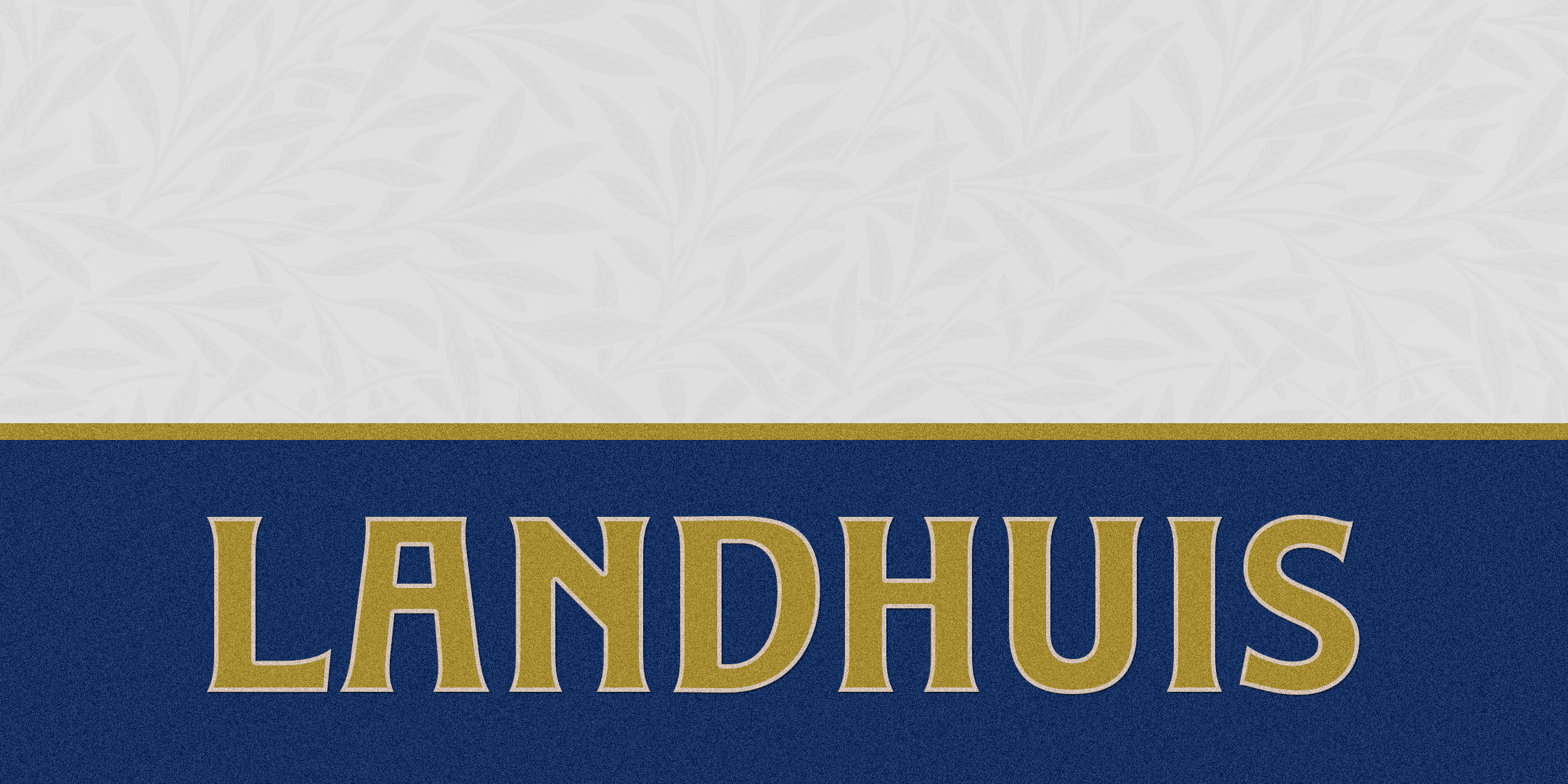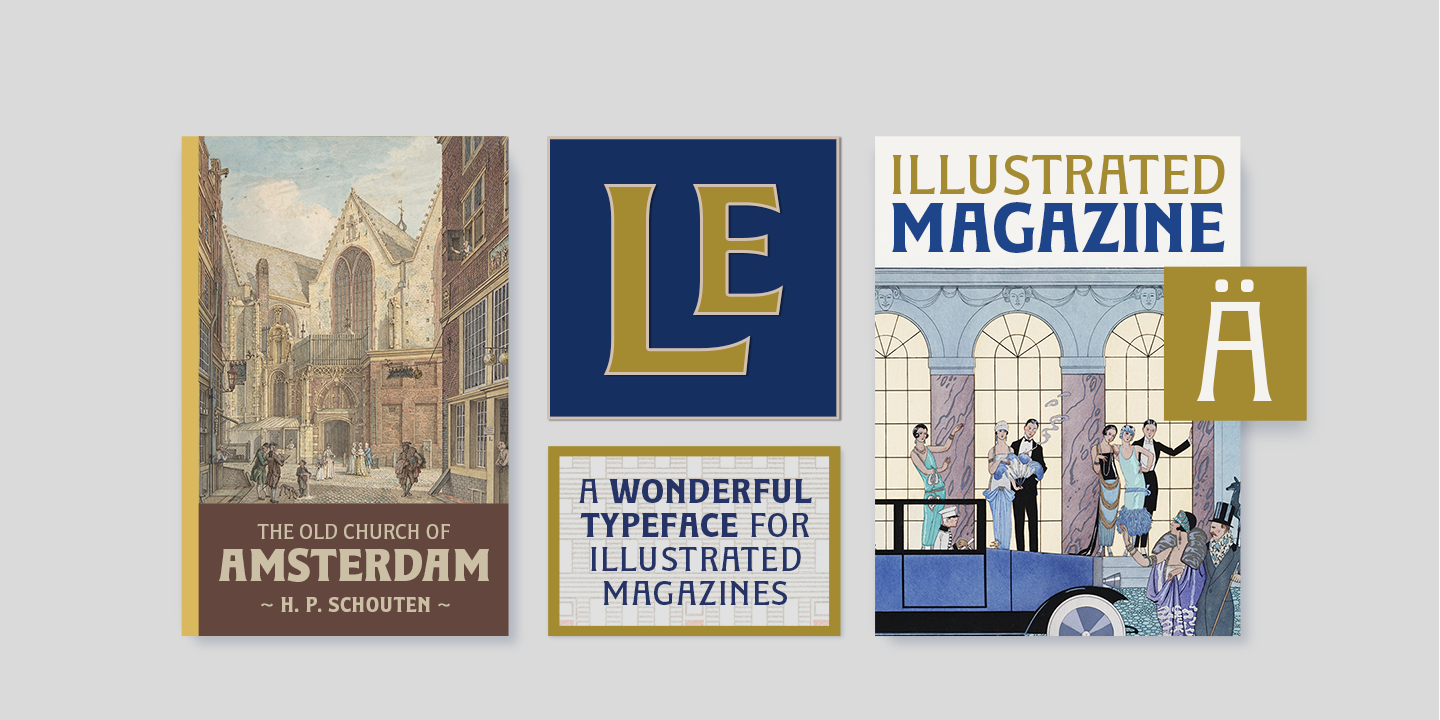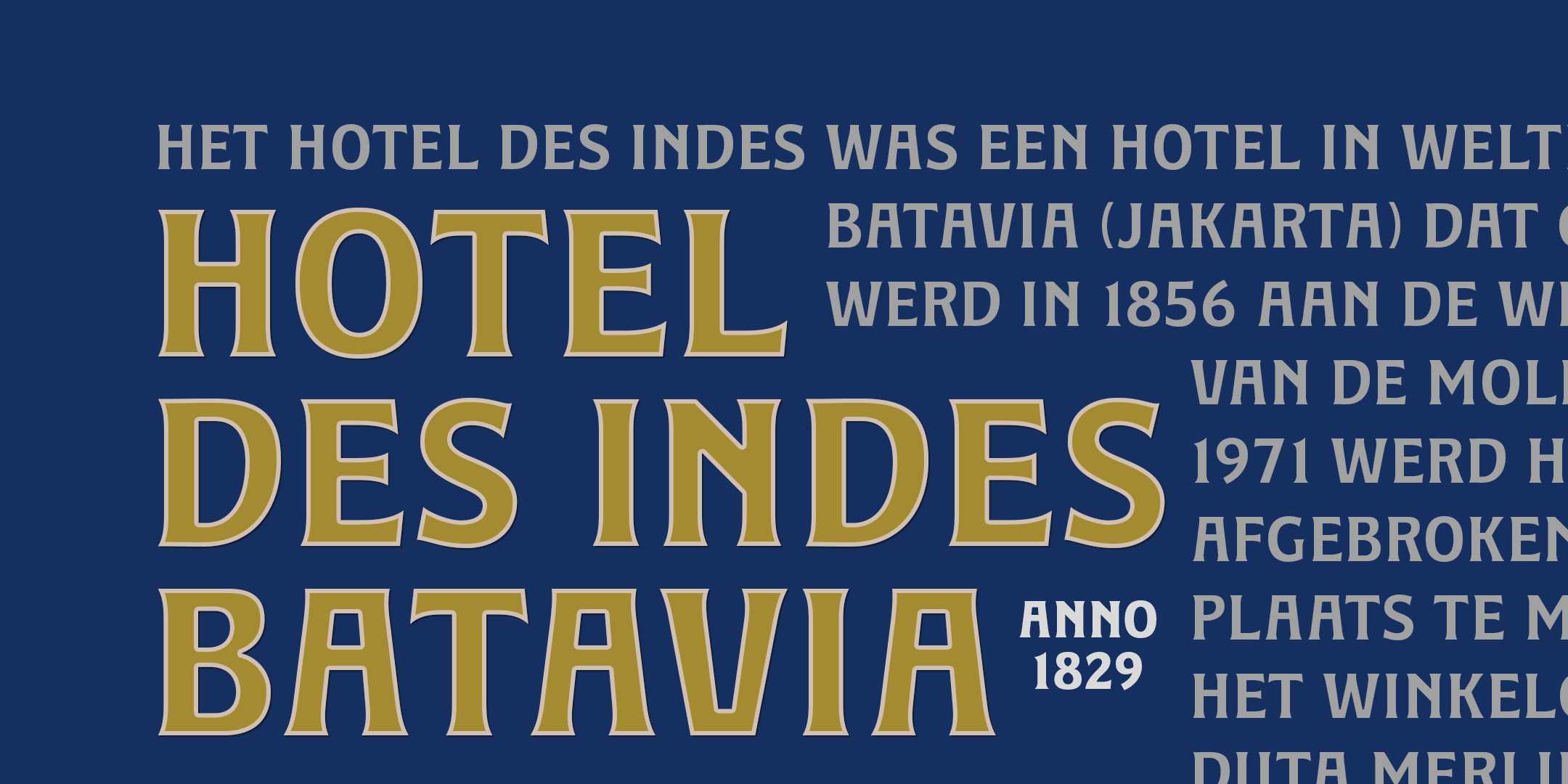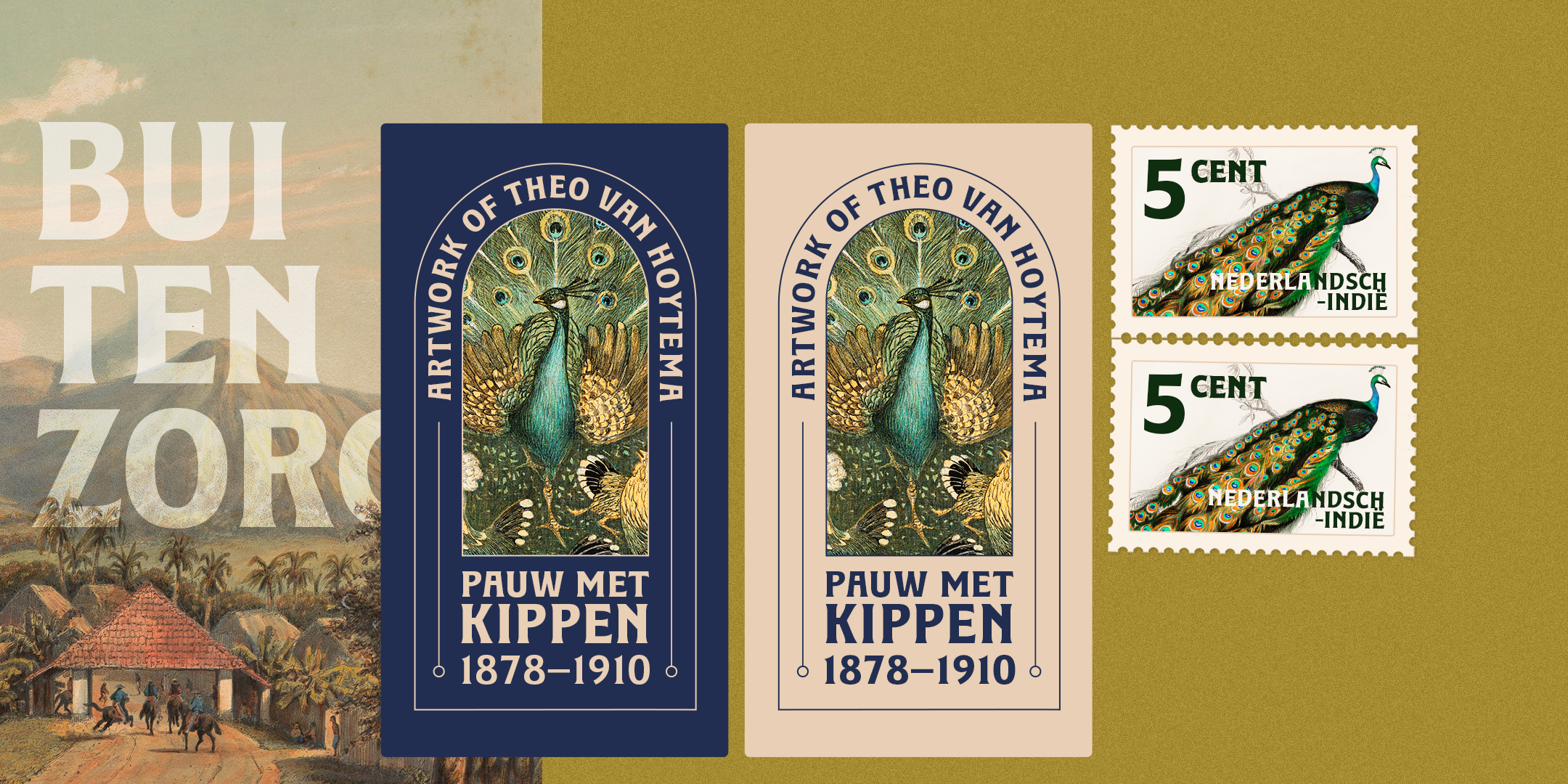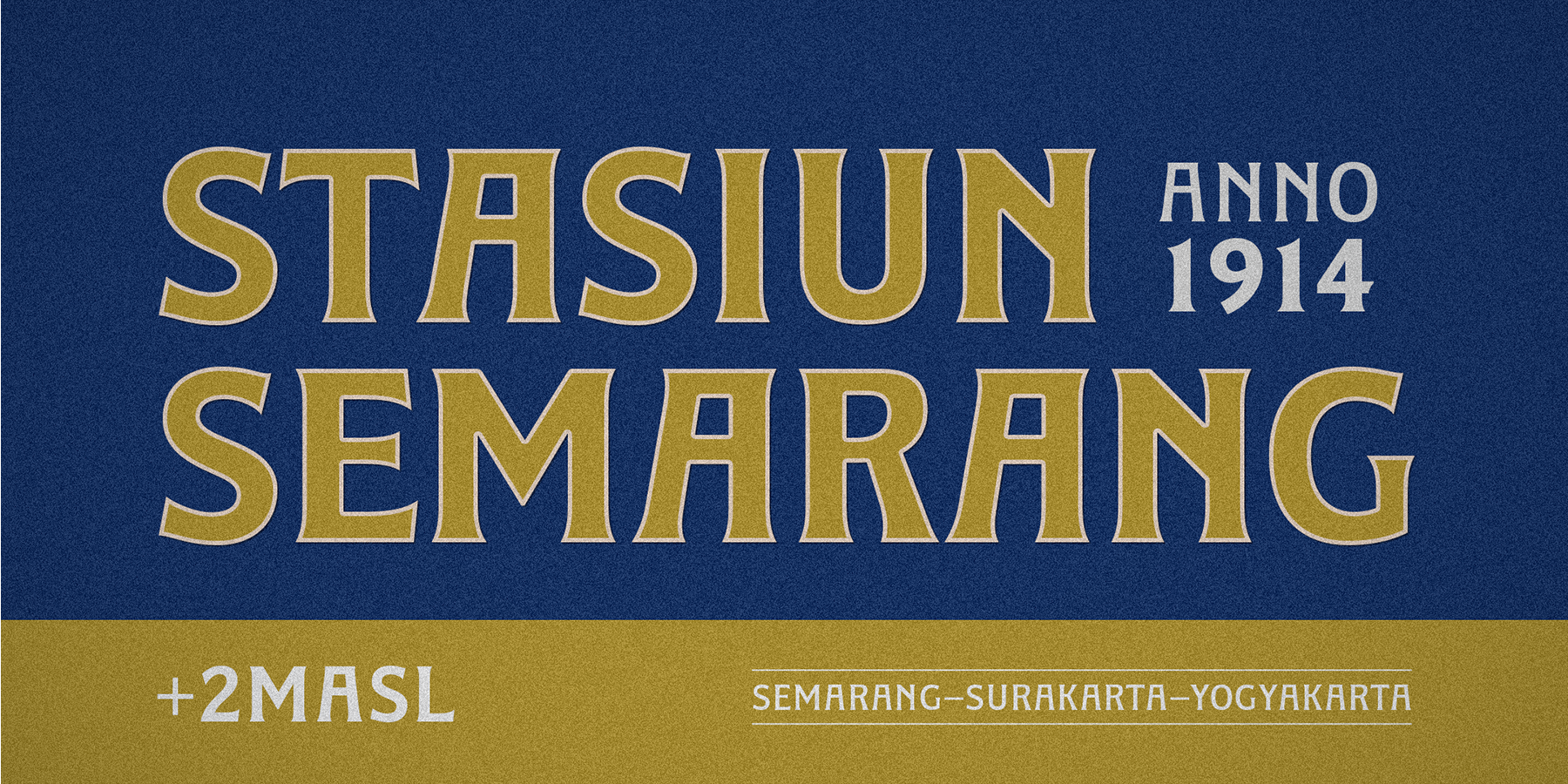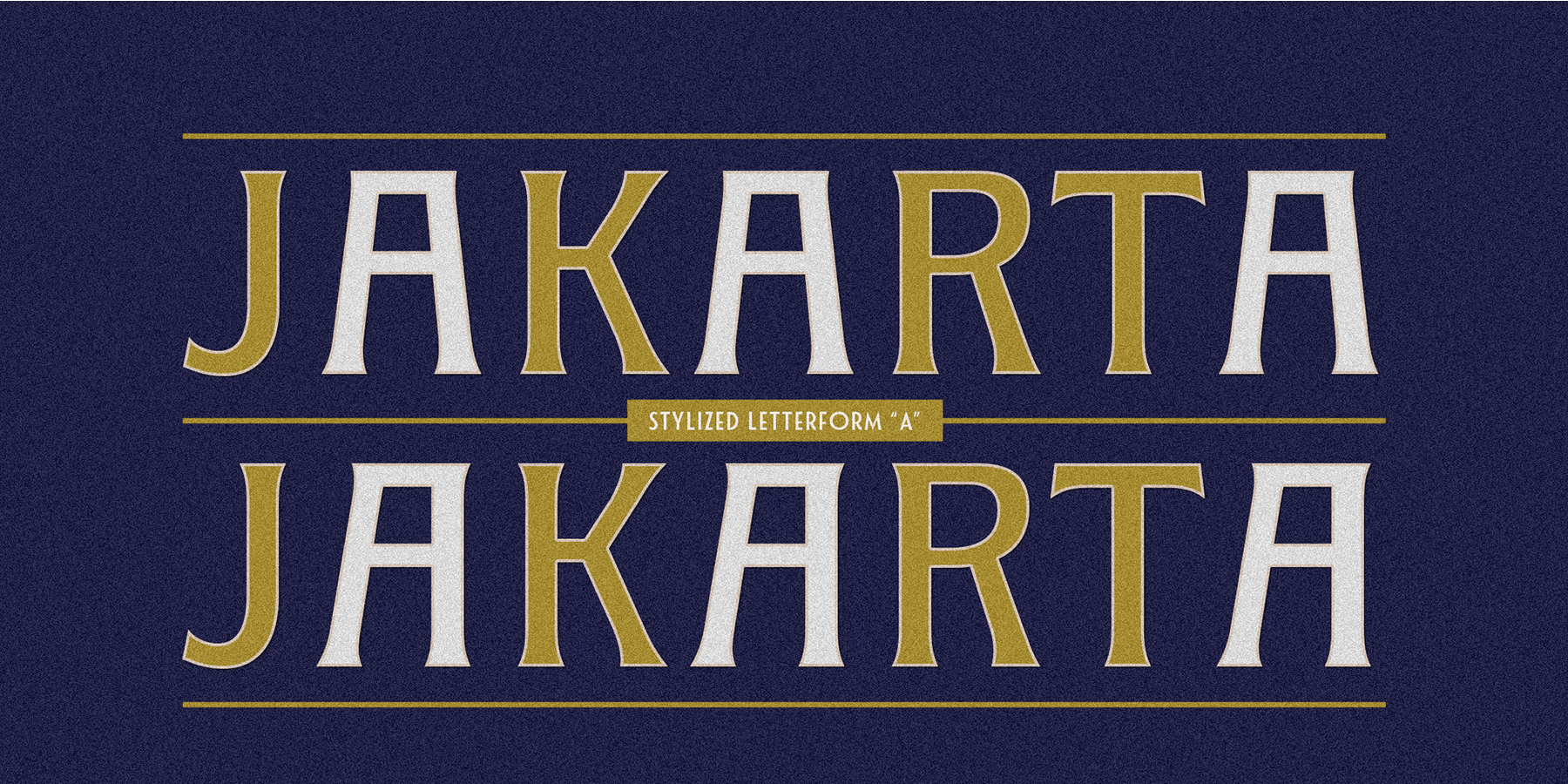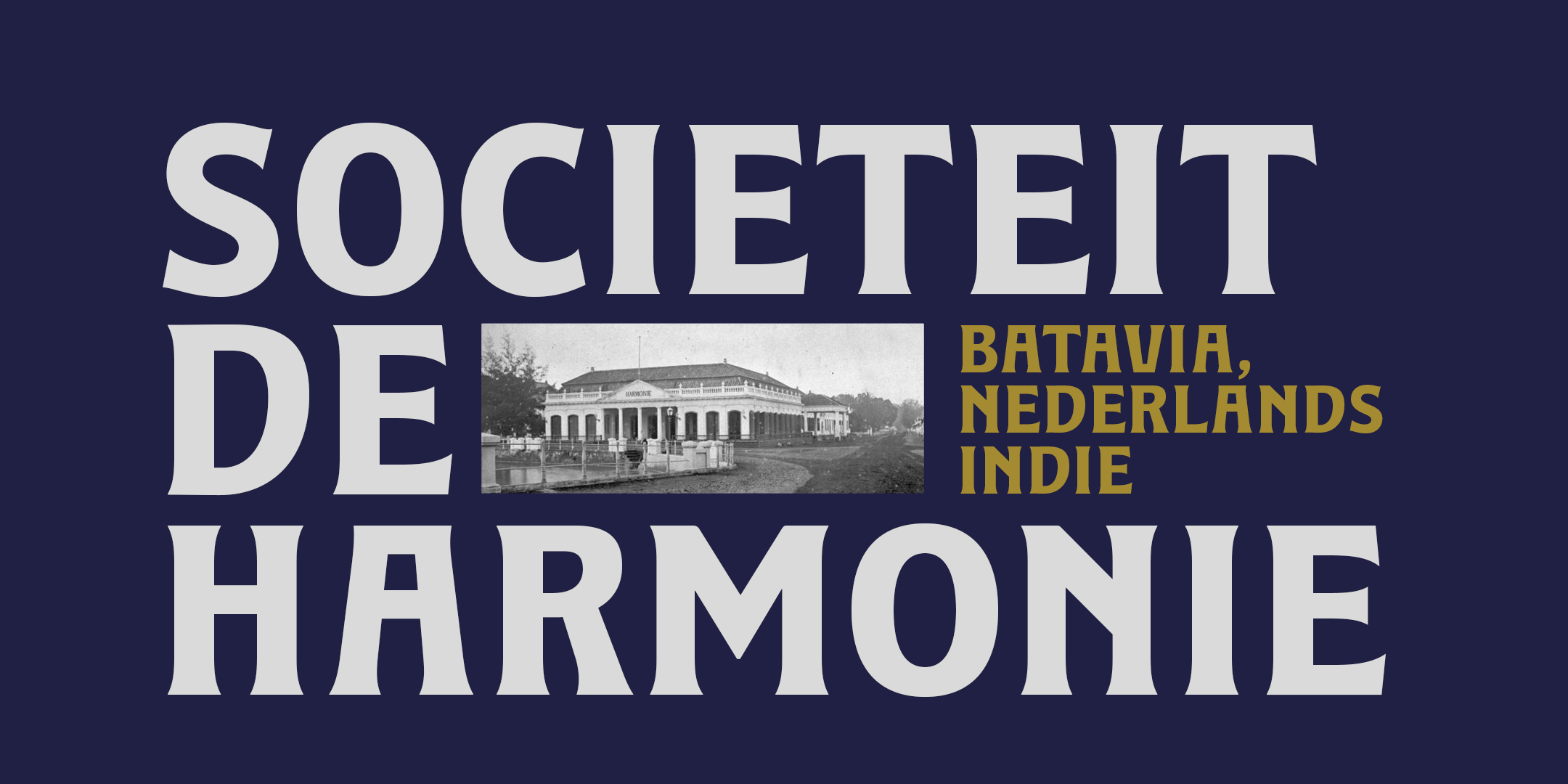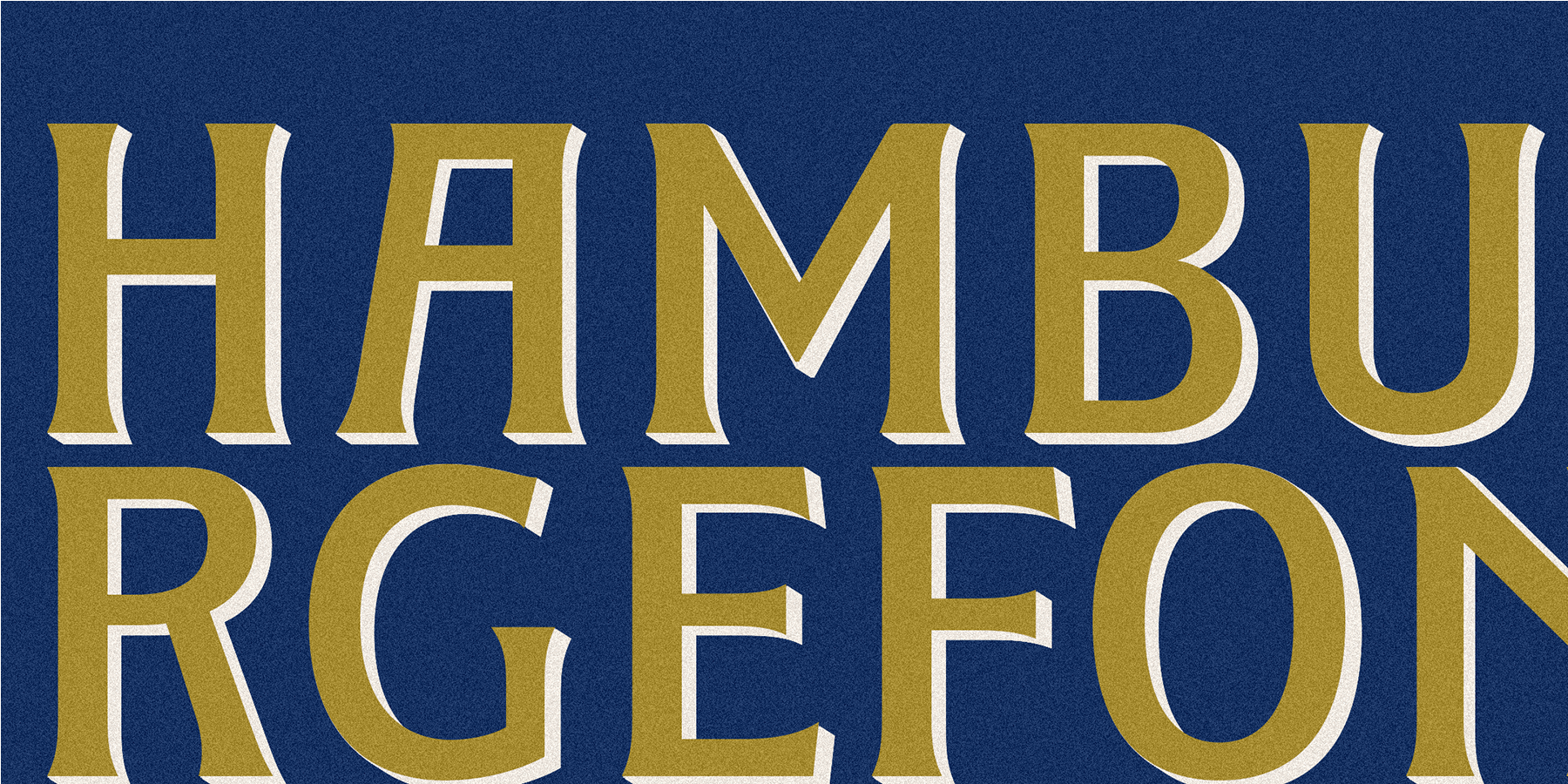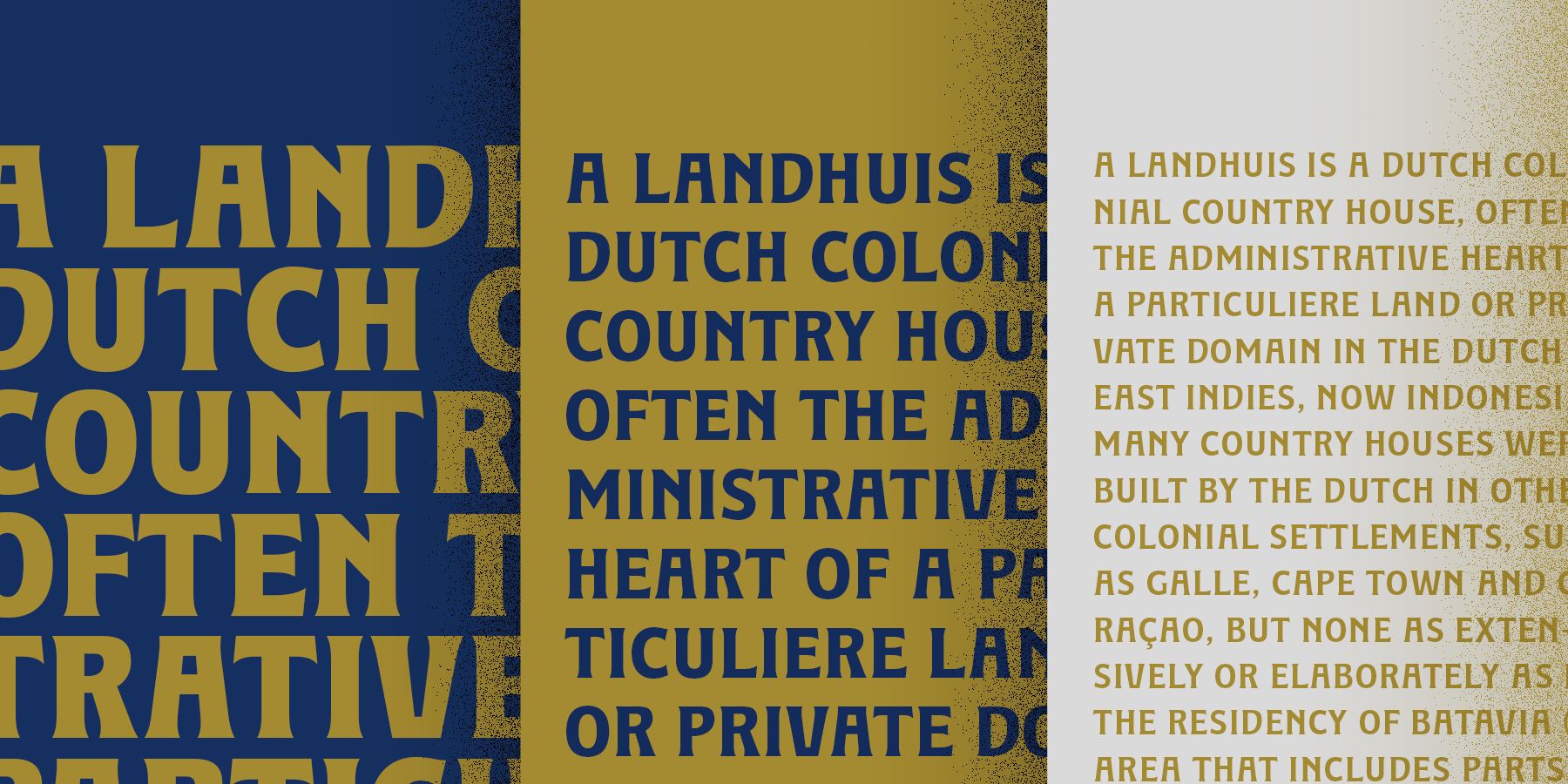
Inspired by an inscription on the facade of an old coffee plantation farmhouse in East Java, Landhuis is an all-caps display typeface that captures a unique slice of history. It evokes the Nederlandsch-Indië era in Indonesia, a time when Art Deco and Art Nouveau typography left a distinct mark on the landscape.
Landhuis is an all-caps display typeface inspired by a historic inscription found on the facade of a coffee plantation farmhouse in East Java. Drawing from the Nederlandsch-Indië (Dutch East Indies) era in Indonesia—a period heavily influenced by Art Deco and Art Nouveau design—Landhuis channels classic colonial aesthetics into a modern toolkit.
Named after the Dutch word for “country house”, the typeface honors the historic 18th and 19th-century estate houses built across former Dutch territories. With 8 versatile weights and extensive Latin and Cyrillic support, Landhuis bridges historic elegance with modern functionality.
OpenType Features
Contextual Alternate, Case Sensitive Forms, Denominator, Fractions, Historical Forms, Kerning, Localized Forms, Numerator, Ordinals, Scientific Inferior, Stylistic Alternate, Subscript, Superscript